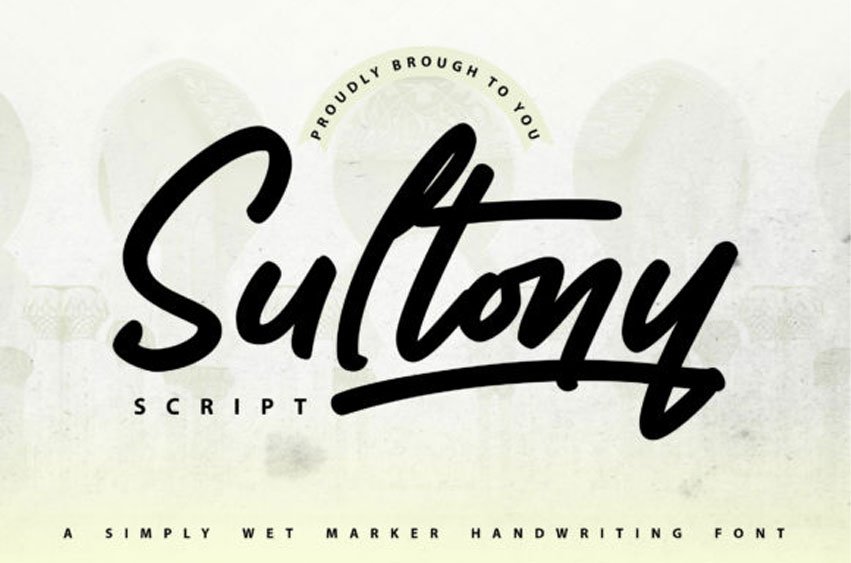
Sultony Font Marker Handwriting Font with a calligraphy style.
It fits in headlines, logos, posters, flyers, invitations, name cards, branding materials, print media, editorial layouts, and many more.